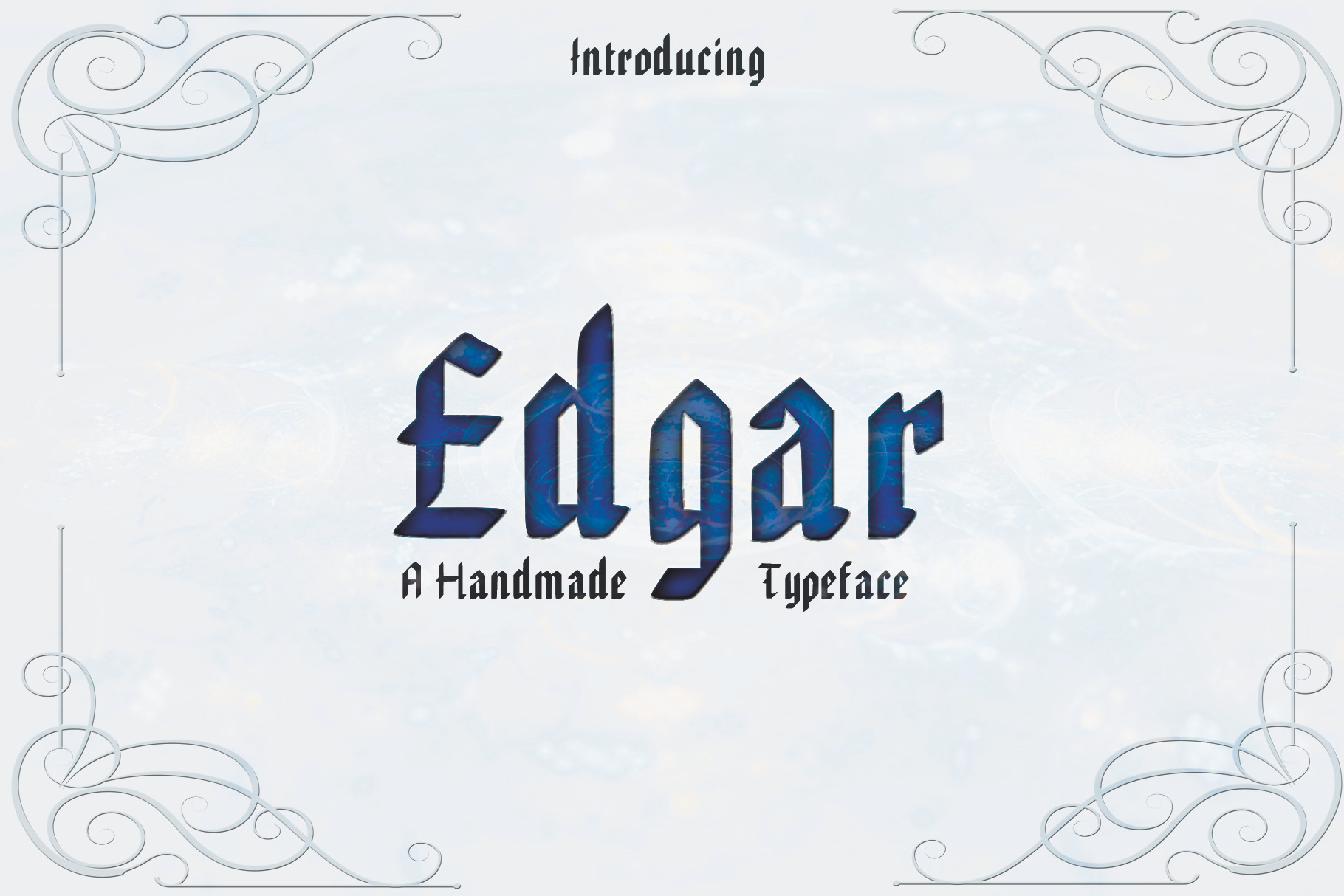
EDGAR, Handmade Gothic Typeface
A powerful font inspired by the gothic style. EDGAR is a handmade classic font with a style that will make your projects stand out. EDGAR comes with upper and lowercase basic Characters, Numbers, Marks, and Punctuation. This style is now mostly used for decorative purposes, for example, to evoke an old word classical feel. It can also be used to evoke a heavy metal feeling.